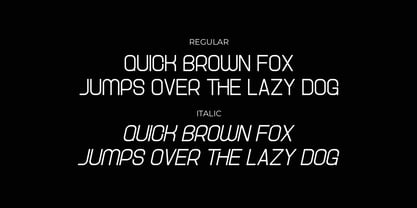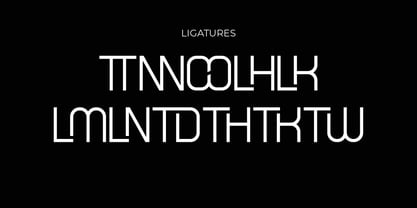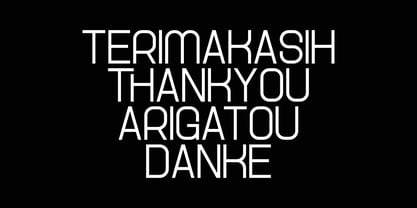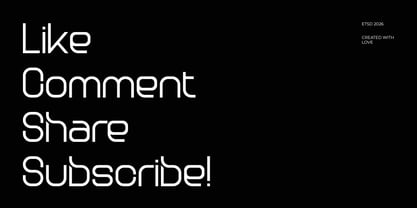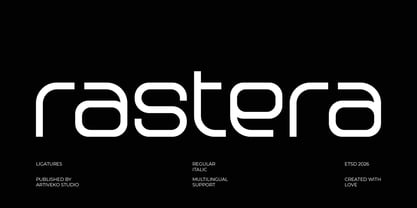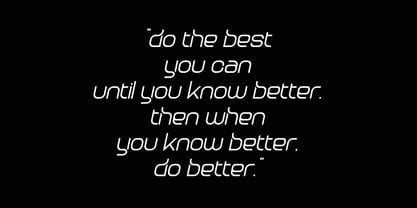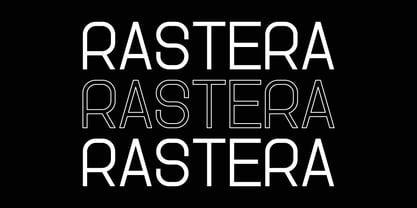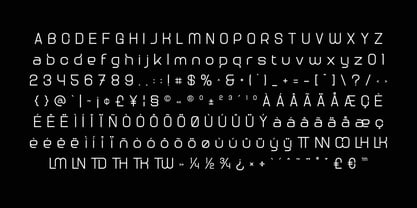
Rastera
by Artiveko
The Rastera Font Family was designed by Iwan Alwan and published by Artiveko. Rastera contains 2 styles and family package options. More about this family
Rastera is a minimalist sans serif typeface crafted with clarity, simplicity, and modern elegance at its core. Featuring clean lines, balanced proportions, and refined spacing, Rastera offers a sleek and professional appearance that seamlessly integrates into contemporary design systems. This versatile typeface is ideal for branding, logos, visual identity, packaging, editorial layouts, websites, and digital interfaces, allowing your content to shine without distraction. Its subtle and understated style exudes a premium aesthetic, making it perfect for lifestyle brands, corporate identities, and innovative creative projects. Rastera is more than just a font — it’s a sophisticated minimalist tool for achieving clean and timeless design.
Designers: Iwan Alwan
Current Foundry: Artiveko
Artiveko is a font design team based in Indonesia, comprised of several talented font designers who commenced their careers in the font design industry in 2020. With a dedicated focus on crafting fonts, the team members bring their collective expertise and passion to every project they undertake. Situated in Indonesia, Artiveko draws inspiration from the vibrant cultural landscape of the region, infusing their creations with unique flavors and aesthetics.The team's font collection encompasses a diverse range of styles, including serif, sans serif, handwritten, and script typefaces. Each typeface is meticulously crafted to meet the demands of modern design while offering versatility and functionality across various applications. Whether it's the classic elegance of serif fonts, the contemporary appeal of sans serif designs, the personal touch of handwritten scripts, or the expressive flourishes of script fonts, Artiveko ensures that every font reflects their dedication to quality and innovation.Artiveko's fonts have garnered recognition and acclaim, with their works being featured on prominent social media platforms like Creative Market. Through these platforms, the team has been able to connect with a global audience of designers and typographers, further amplifying their reach and influence in the industry. Their fonts are celebrated for their impeccable craftsmanship, attention to detail, and ability to elevate design projects with style and sophistication.As Artiveko continues to evolve and expand its font collection, the team remains committed to pushing the boundaries of typography and setting new standards of excellence. With a relentless focus on creativity, innovation, and collaboration, Artiveko strives to inspire and empower designers around the world with their distinctive and versatile font designs.